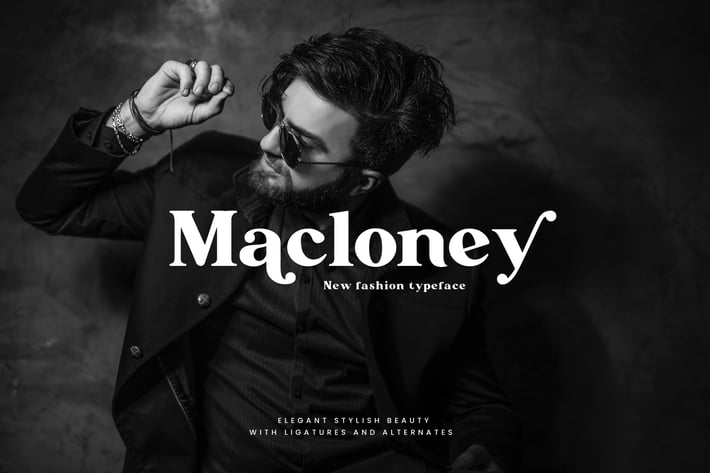
Macloney - Bold Serif Font
Are you looking for a bold and elegant serif font? We can help! Try to download our Macloney font. The font is suitable to use for all purpose. Try to use it on Wedding invitation, summer occasion, greeting card, poster, postcard, photography, branding, editorial, event and fashion.